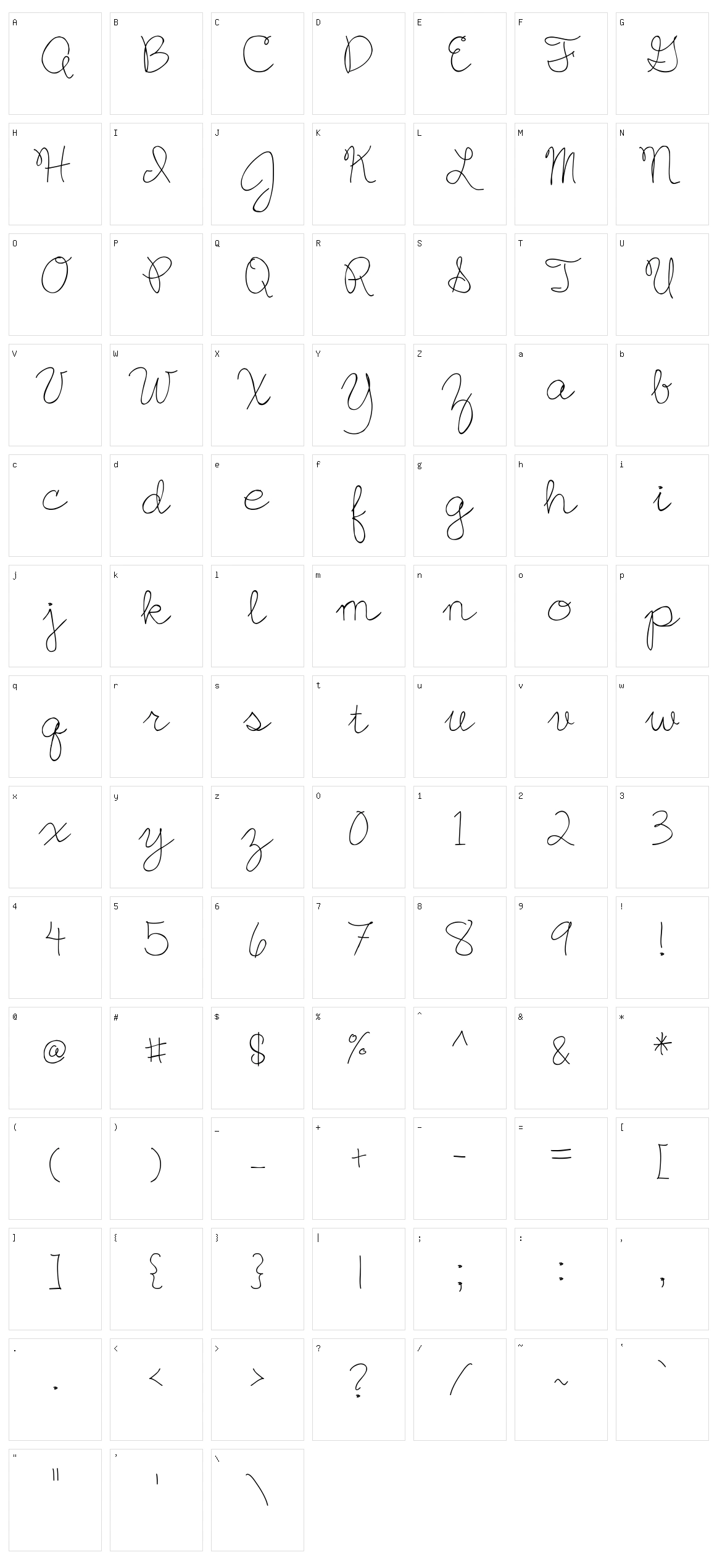
The free font English Essay is carefully designed by Brittney Murphy Design, showcasing a thoughtful balance of creativity and usability and falls under the School font style. When you download the ZIP file, it contains only 26.7 KB of font files, making it lightweight and quick to download. Please review the license details below to understand permitted usage and distribution rights. If license information is not available, we recommend using this font for personal projects only or contacting the author directly for commercial usage permissions.